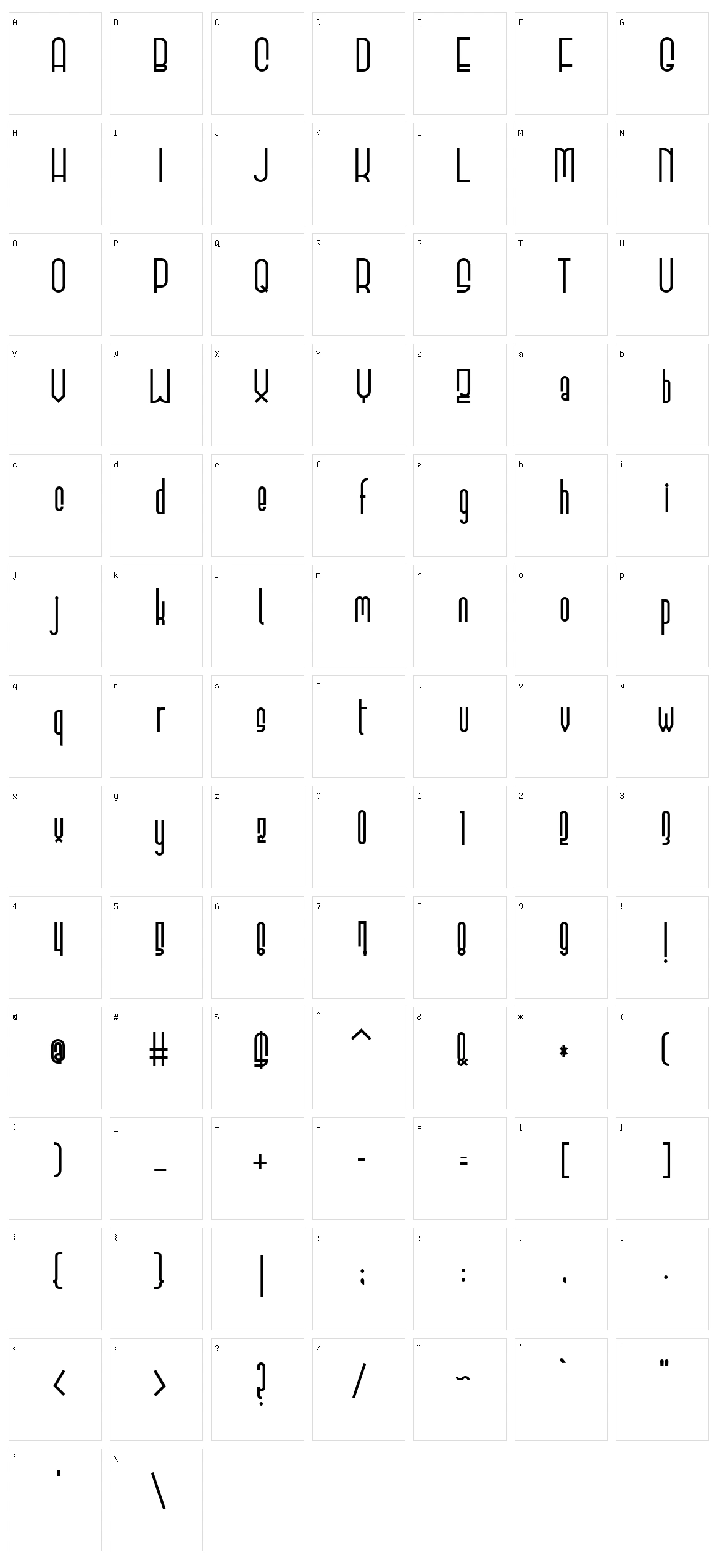
The free font Elevant is carefully designed by Mellamanpel, showcasing a thoughtful balance of creativity and usability and falls under the Sans serif font style. When you download the ZIP file, it contains only 48.94 KB of font files, making it lightweight and quick to download. Please review the license details below to understand permitted usage and distribution rights. If license information is not available, we recommend using this font for personal projects only or contacting the author directly for commercial usage permissions.